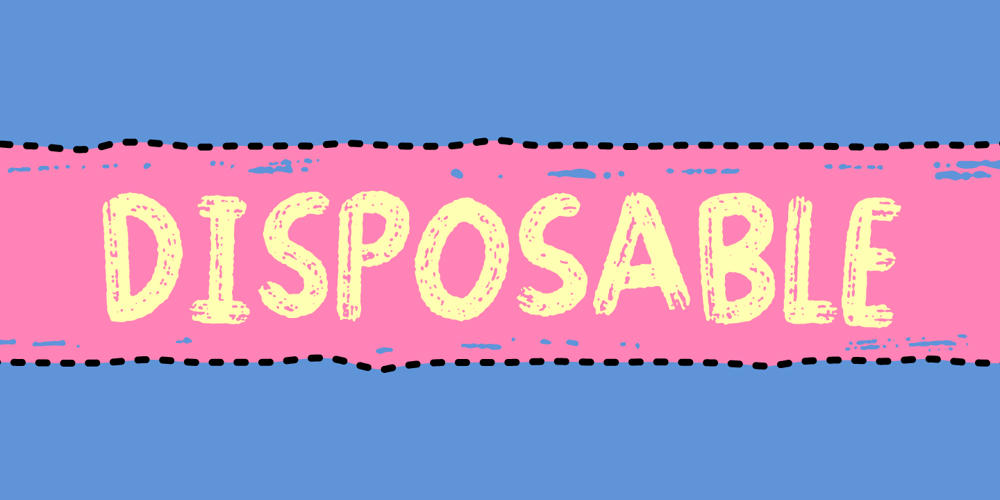
Disposable Font Family was designed by Jakob Fischer and published by PizzaDude.dk. Disposable contains 1 styles and family package options. Disposable is somewhat similar to some letters that are about to disintegrate. The letters are a little worn and give a good impression of something eco or organic. I’ve created 6 different versions of all the letters, just so your text will look even more organic and handmade!